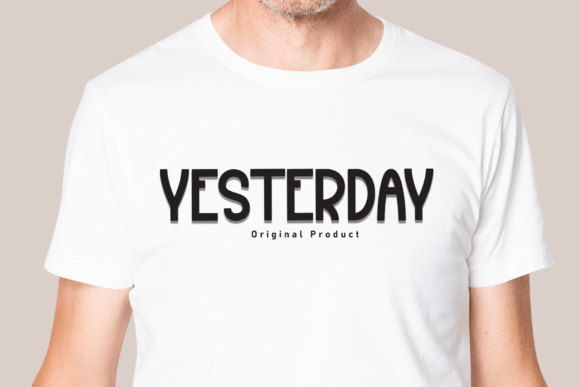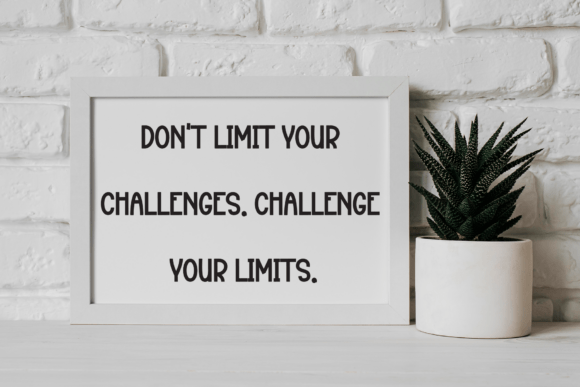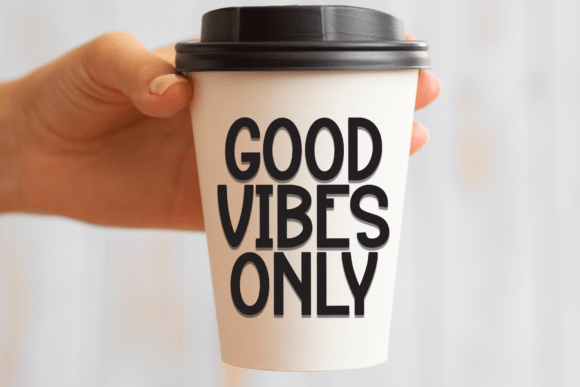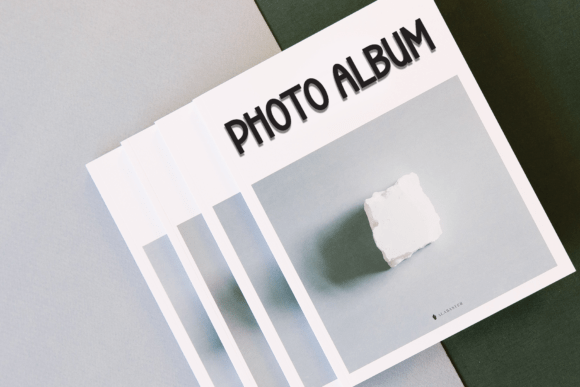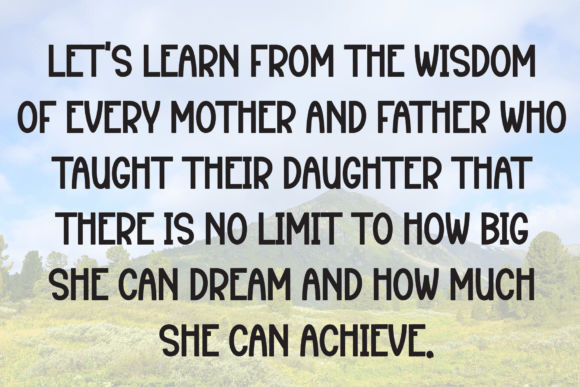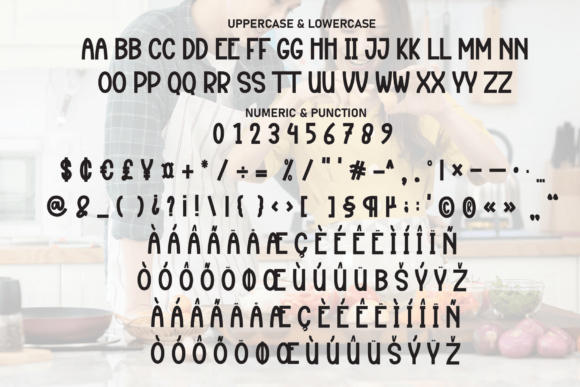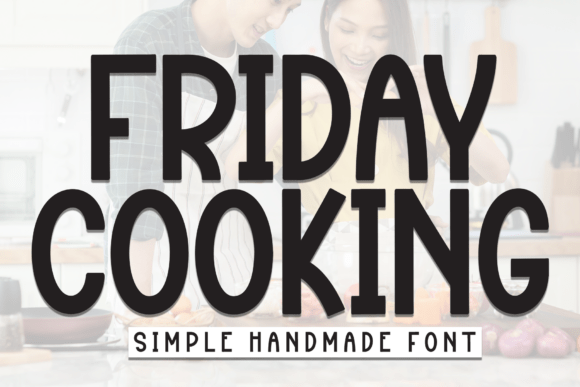
Introducing Friday Cooking Font: Add a Dash of Whimsy to Your Designs
Are you tired of using the same old fonts in your designs? Do you want to add a touch of personality and whimsy to your creations? Look no further than Friday Cooking Font, a lovable and handcrafted display font that’s sure to delight. In this article, we’ll take a closer look at this charming font and explore how it can elevate your designs from ordinary to irresistibly enchanting.
The Charm of Friday Cooking Font
Friday Cooking Font is a carefully crafted display font that’s designed to infuse your creations with a delightful, friendly vibe. Its adorable and playful style makes it the perfect choice for crafting whimsical wedding invites, captivating cards, or any design that yearns for a dash of fun. Whether you’re a designer, crafter, or DIY enthusiast, this font is sure to capture your heart and inspire your creativity.
What Sets Friday Cooking Font Apart
So, what makes Friday Cooking Font so special? For starters, its unique and pleasingly distinctive style sets it apart from more traditional fonts. This font is not just a collection of letters and symbols – it’s a work of art that’s been carefully crafted to evoke a sense of wonder and playfulness. When you use Friday Cooking Font in your designs, you can be sure that they’ll stand out from the crowd and leave a lasting impression on your audience.
Perfect for Whimsical Designs
Friday Cooking Font is the perfect choice for designers and crafters who want to add a touch of whimsy to their creations. Whether you’re working on a wedding invitation, a greeting card, or a DIY project, this font is sure to bring a smile to your face and a touch of magic to your design. Its playful style is also perfect for children’s party invitations, baby shower announcements, and other fun and festive designs.
Tips for Using Friday Cooking Font
To get the most out of Friday Cooking Font, here are a few tips to keep in mind:
• Use it sparingly: While Friday Cooking Font is certainly eye-catching, it’s best used in moderation. Try using it as a headline or title font, and pairing it with a simpler font for body text.
• Experiment with colors: Friday Cooking Font looks great in a variety of colors, from bright and bold to soft and pastel. Don’t be afraid to experiment and find the perfect color to match your design.
• Mix and match: Friday Cooking Font pairs well with a variety of other fonts and design elements. Try mixing and matching it with other fonts, textures, and graphics to create a unique and eye-catching design.
Why Designers and Crafters Love Friday Cooking Font
Friday Cooking Font has quickly become a favorite among designers and crafters, and for good reason. Here are just a few reasons why:
• Unique and distinctive style: Friday Cooking Font is truly one-of-a-kind, with a style that’s both playful and elegant.
• Easy to use: Despite its intricate and detailed design, Friday Cooking Font is surprisingly easy to use, even for those with limited design experience.
• Versatile: Friday Cooking Font can be used for a wide range of design projects, from wedding invitations to DIY crafts.
Get Ready to Fall in Love with Friday Cooking Font
If you’re looking for a font that will add a touch of whimsy and personality to your designs, look no further than Friday Cooking Font. With its adorable and playful style, this handcrafted display font is sure to capture your heart and inspire your creativity. Whether you’re a designer, crafter, or DIY enthusiast, Friday Cooking Font is the perfect choice for anyone who wants to create designs that are truly irresistible.
In conclusion, Friday Cooking Font is a truly unique and charming font that’s perfect for designers and crafters who want to add a touch of whimsy to their creations. With its adorable and playful style, this handcrafted display font is sure to elevate your designs from ordinary to irresistibly enchanting. So why wait? Try Friday Cooking Font today and see the magic for yourself!